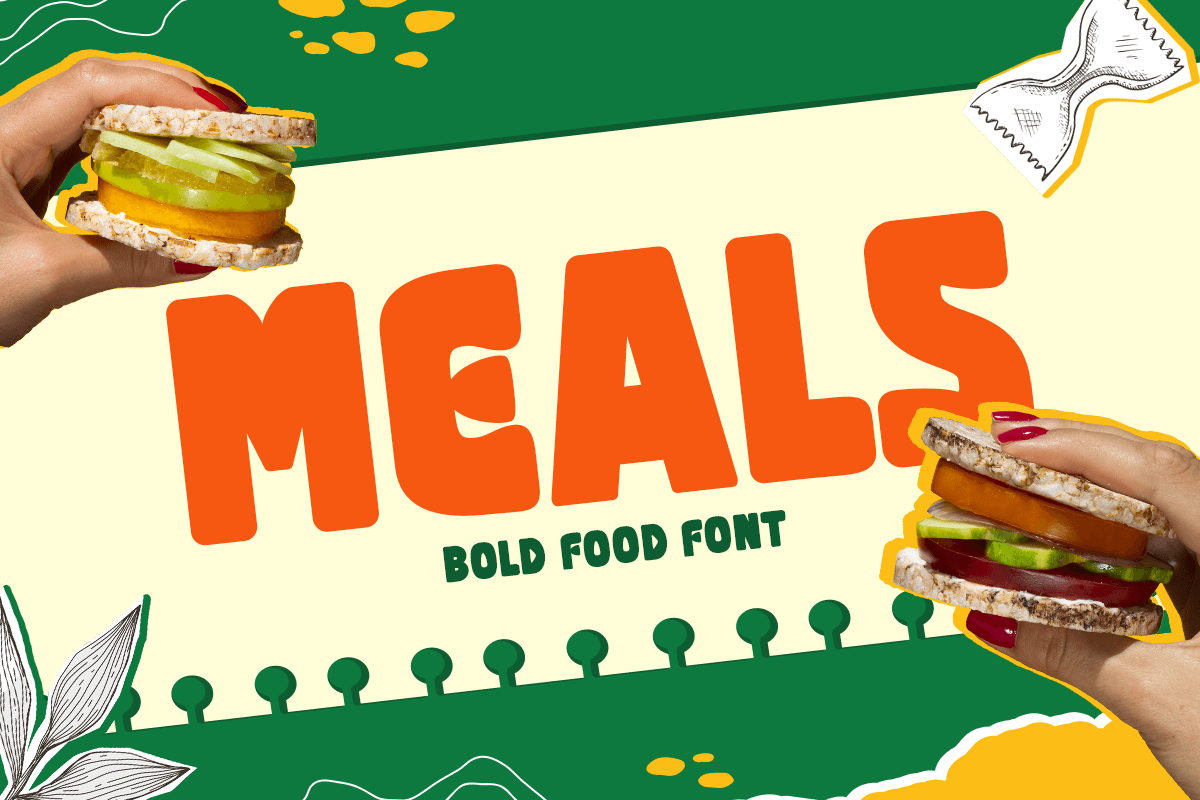
Meals
-Bold Food FontMeals is a bold food font designed to make your culinary designs pop. Inspired by the vibrant and dynamic world of food, Meals combines boldness with a playful touch to create a font that's perfect for menus, restaurant branding, and any food-related design projects. Whether you're crafting an eye-catching menu, designing a logo for a gourmet restaurant, or creating delicious branding materials, Meals delivers the perfect blend of style and flavor.
The Story Behind Meals:
Meals was born from a love of food and design. The font captures the essence of culinary creativity and the joy of eating. Designed to be both bold and approachable, Meals is perfect for any project that needs to convey a sense of taste, fun, and excitement. From cafes and bistros to gourmet restaurants and food trucks, Meals is the go-to font for all things food-related.
Meals Font Features:
Bold Design: Perfect for making your menus and food branding stand out.
Versatile Usage: Ideal for restaurant logos, menus, packaging, and culinary designs.
High Legibility: Ensures your text is easy to read, even from a distance.
Playful Touch: Adds a fun and inviting feel to your food-related projects.
Inspirational Previews: Includes sample designs to show the font's potential and inspire your creativity.
Elevate your culinary designs with Meals and bring a bold, flavorful touch to your work.